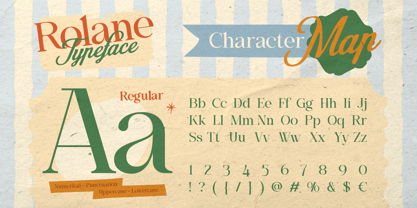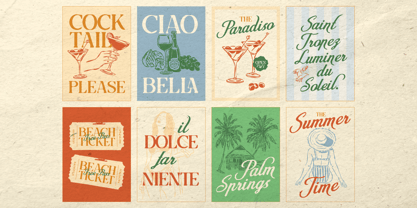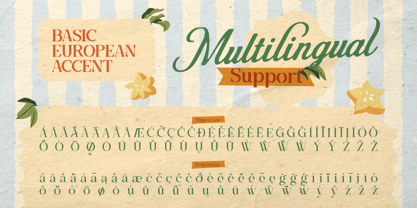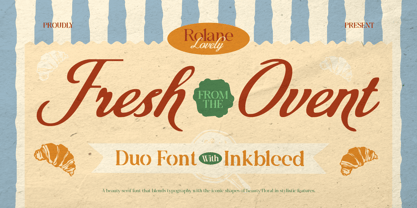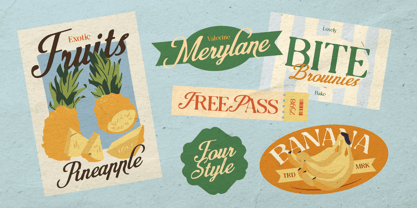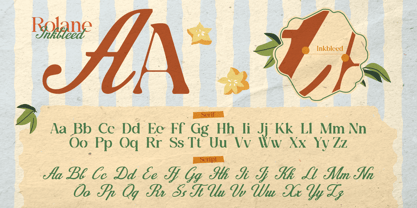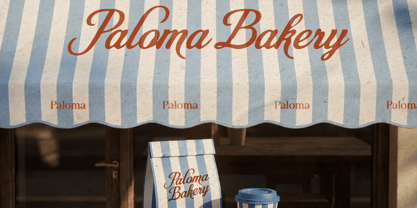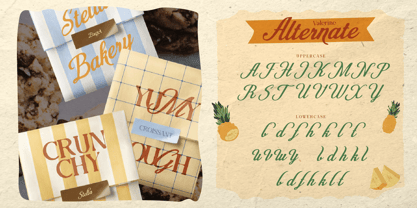
Rolane
by Burntilldead
The Rolane Font Family was designed by Eric Kurniawan and published by Burntilldead. Rolane contains 4 styles and family package options. More about this family
Valerine is a well-balanced duo font that combines a clean, elegant serif with a smooth and expressive script. Designed with strong attention to letterform details, this typeface offers a refined contrast between structure and flow—making it highly versatile for various design needs.
The serif features sharp, classic proportions with a modern touch, delivering excellent readability while still maintaining a distinctive personality. Its clean strokes and subtle curves make it suitable for both headlines and body-sized display text.
The script font complements the serif with natural, fluid strokes and consistent rhythm. It feels handwritten yet controlled, allowing for smooth connections and a polished look across words and phrases.
To enhance its character, Valerine also includes an inkbleed version, adding slight texture to the edges of each letter. This gives designers the option to create a more organic and less digital appearance without sacrificing clarity.
Designers: Eric Kurniawan
Foundry: Burntilldead